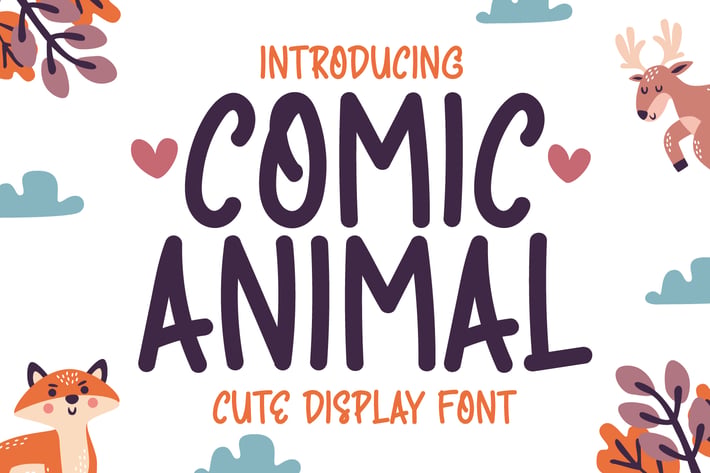
Comic Animal - Cute Handwriting Display Font
Introducing Comic Animal - Cute Handwriting Display Font
Comic Animal is a cute, simple and trendy display font. Suitable to a wide variety of designs, this font has the potential to become your favorite go-to font, no matter the occasion!